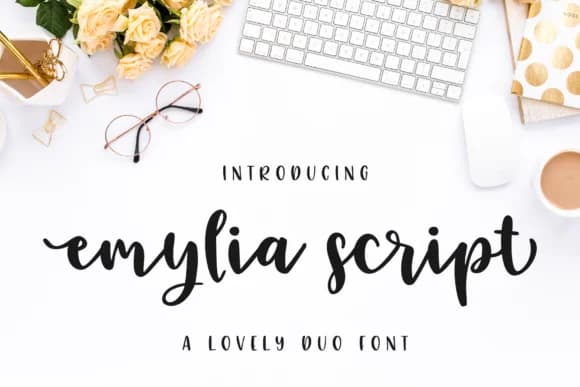
Emylia Script by Emylia Design is a flowing handwritten typeface with gently curved letterforms that bring refined femininity to sophisticated projects. The expressive baseline variations and natural character create a distinctly elegant aesthetic that resonates with designers seeking authenticity and crafted sensibility. This script excels in wedding invitation suites, where its graceful strokes complement formal occasions without feeling overly ornate. It's equally suited for branding beauty and cosmetics companies seeking that touch of refinement, or creating bespoke stationery for luxury service businesses. Event designers can leverage its warmth for save-the-date cards and celebration announcements, while boutique shop owners find it ideal for custom product labeling and gift packaging that tells a handcrafted story. The font's strong legibility at moderate sizes makes it versatile across applications, from social media graphics for lifestyle brands and personalized greeting cards to creative professional logotypes. Whether you're building brand identity centered on artisanal quality or designing for clients who value authentic, carefully crafted details, Emylia Script delivers visual impact while maintaining readability. Its natural flow brings sophistication to any project that benefits from a human-drawn sensibility and timeless elegance. Get Emylia Script Font from Creative Fabrica and add this refined handwritten typeface to your design library.
Emylia Script Font is a script font that shines as a display or heading face. Pair it with a clean sans-serif or serif font for body text β the contrast creates a clear hierarchy while the two styles stay balanced and easy to read.
Emylia Script Font